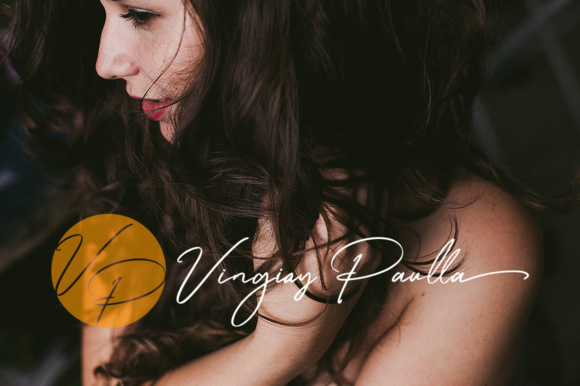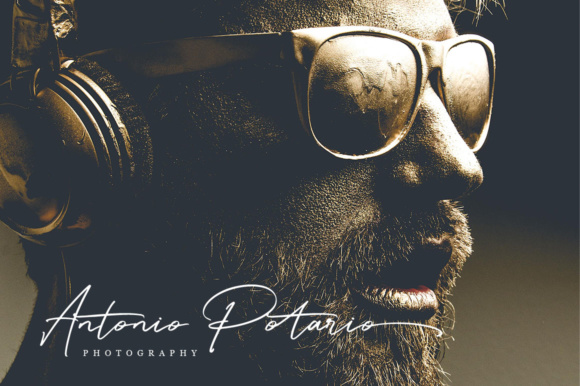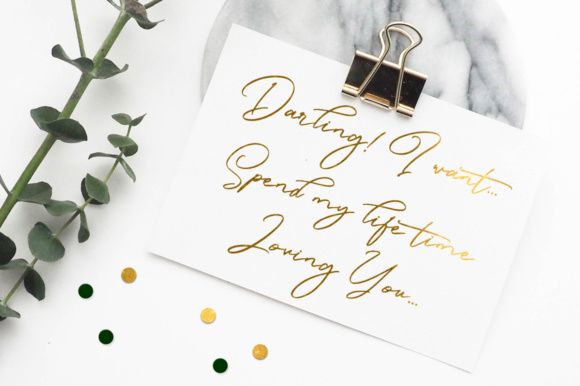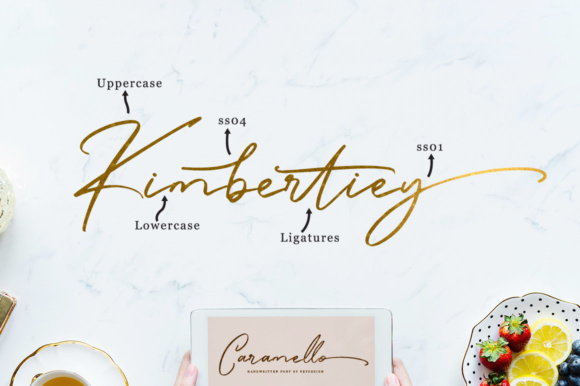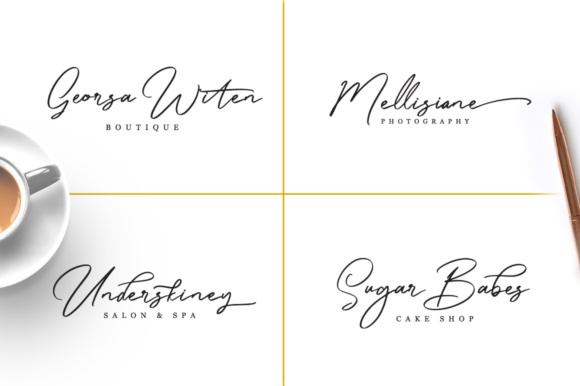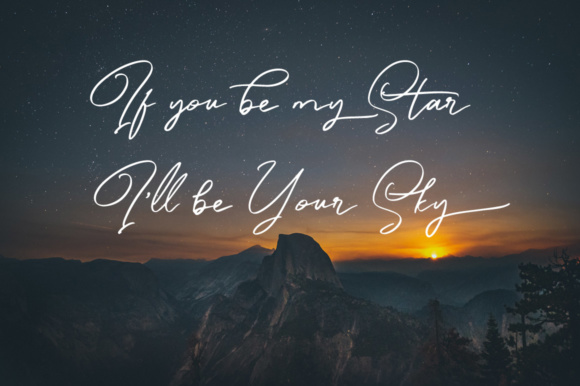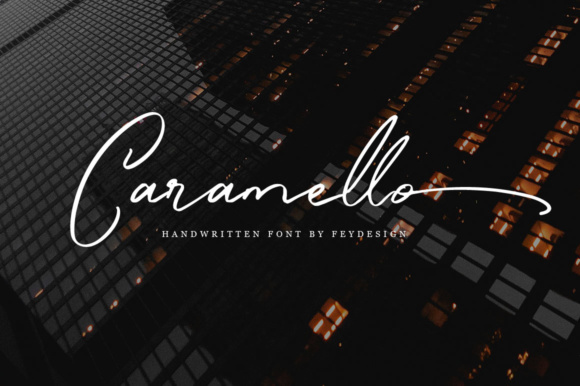
Introducing the Caramello Font: A Handwritten Script Font with a Signature Style
The Caramello font is a beautiful, handwritten script font that has been gaining popularity among designers and crafters alike. Its unique signature style makes it perfect for a variety of design elements, including weddings, events, t-shirts, logos, and any other design that needs a personal touch. In this article, we’ll take a closer look at the Caramello font, its features, and how you can use it to elevate your designs.
What is the Caramello Font?
The Caramello font is a handwritten script font that boasts a distinctive, cursive style. Its elegant and flowing lines make it perfect for designs that require a touch of sophistication and whimsy. The font is designed to look like it was written by hand, with subtle imperfections and variations in letter size and spacing. This gives it a warm, personal feel that’s perfect for creating unique and eye-catching designs.
Key Features of the Caramello Font
The Caramello font has several key features that make it stand out from other script fonts. Some of its notable features include:
- Handwritten style: The Caramello font has a genuine handwritten look that’s perfect for creating personal and unique designs.
- Signature style: The font has a distinctive signature style that’s perfect for adding a touch of elegance and sophistication to your designs.
- Variations in letter size and spacing: The font features subtle variations in letter size and spacing, giving it a warm and personal feel.
Uses for the Caramello Font
The Caramello font is incredibly versatile and can be used for a wide range of design projects. Here are some ideas to get you started:
- Wedding designs: The Caramello font is perfect for wedding invitations, save-the-date cards, and other wedding-related designs.
- Event branding: Use the Caramello font to create eye-catching event branding, including posters, flyers, and social media graphics.
- T-shirt designs: The Caramello font is a great choice for t-shirt designs, particularly for designs that require a personal touch.
- Logo design: The font’s unique signature style makes it perfect for logo design, particularly for businesses that want to stand out from the crowd.
- Stationery and packaging: Use the Caramello font to create beautiful stationery and packaging that reflects your brand’s personality.
Tips for Using the Caramello Font
Here are some tips for getting the most out of the Caramello font:
- Use it sparingly: The Caramello font is best used sparingly, particularly for headings and titles.
- Pair it with other fonts: The Caramello font pairs well with other fonts, particularly sans-serif fonts like Arial or Helvetica.
- Experiment with colors: The Caramello font looks great in a variety of colors, so don’t be afraid to experiment and find the perfect color scheme for your design.
The Caramello font is a beautiful, handwritten script font that’s perfect for designers and crafters who want to add a personal touch to their designs. Its unique signature style, variations in letter size and spacing, and multilingual support make it a versatile font that can be used for a wide range of design projects. Whether you’re designing wedding invitations, event branding, or t-shirt designs, the Caramello font is a great choice. So why not give it a try and see how it can elevate your designs?